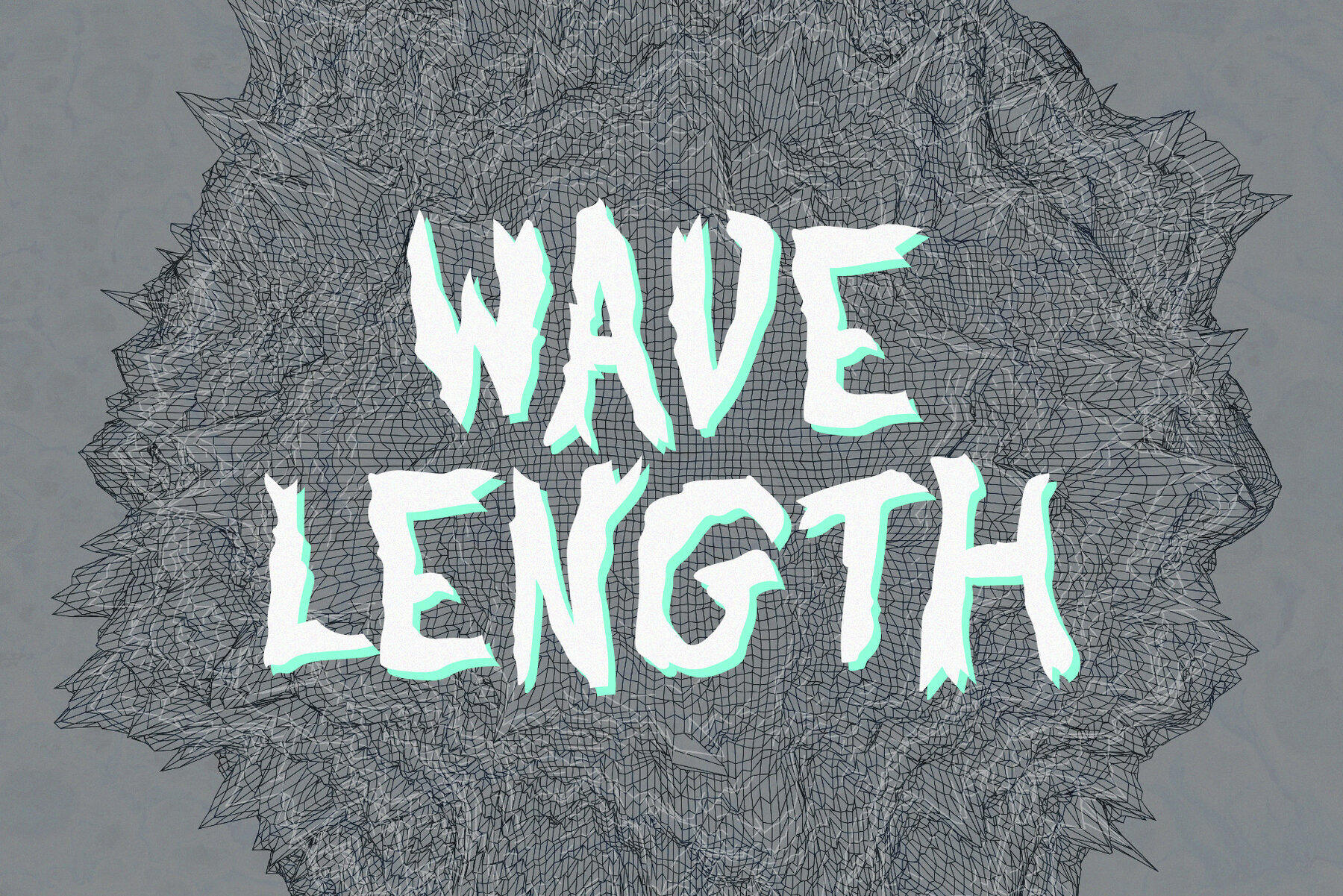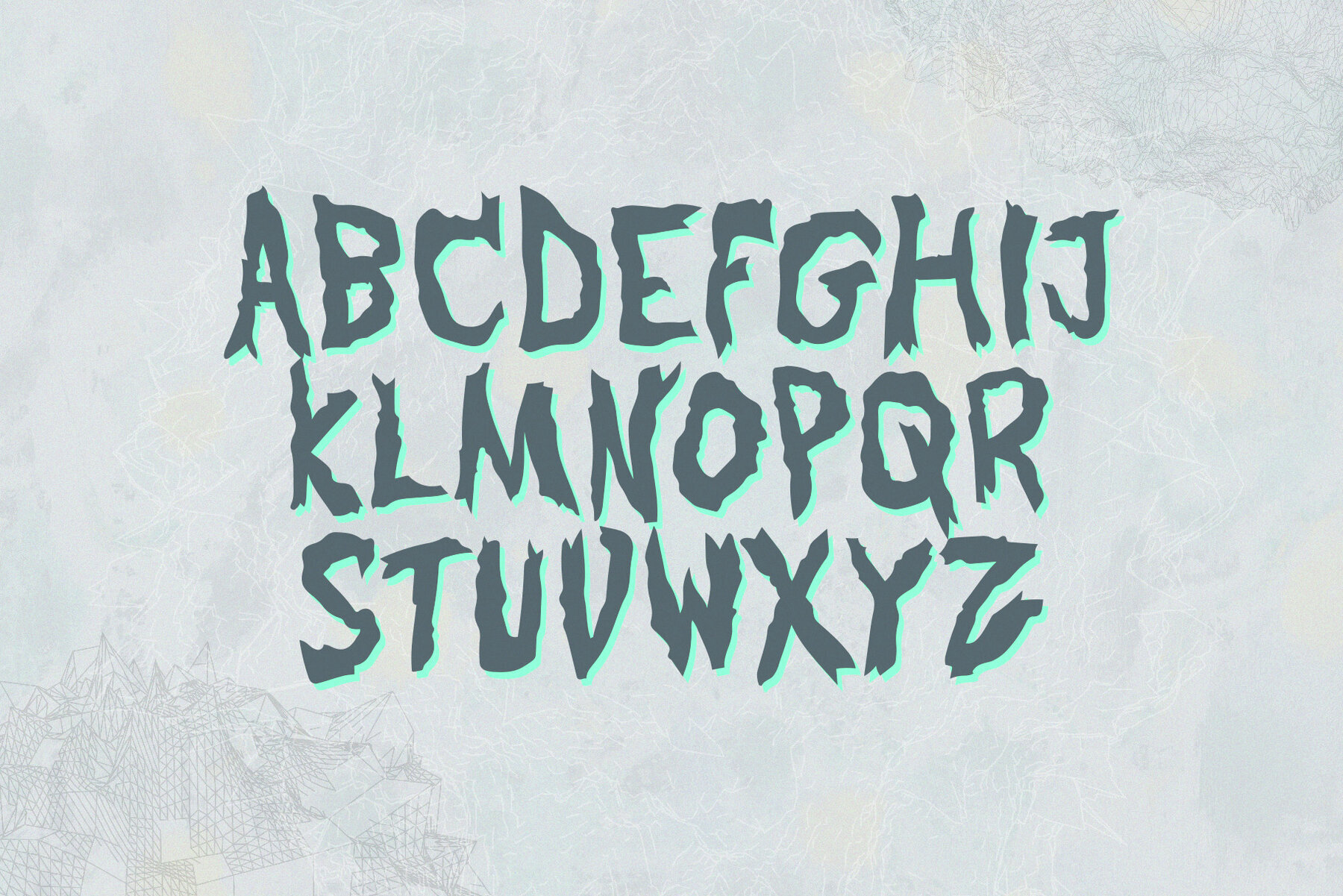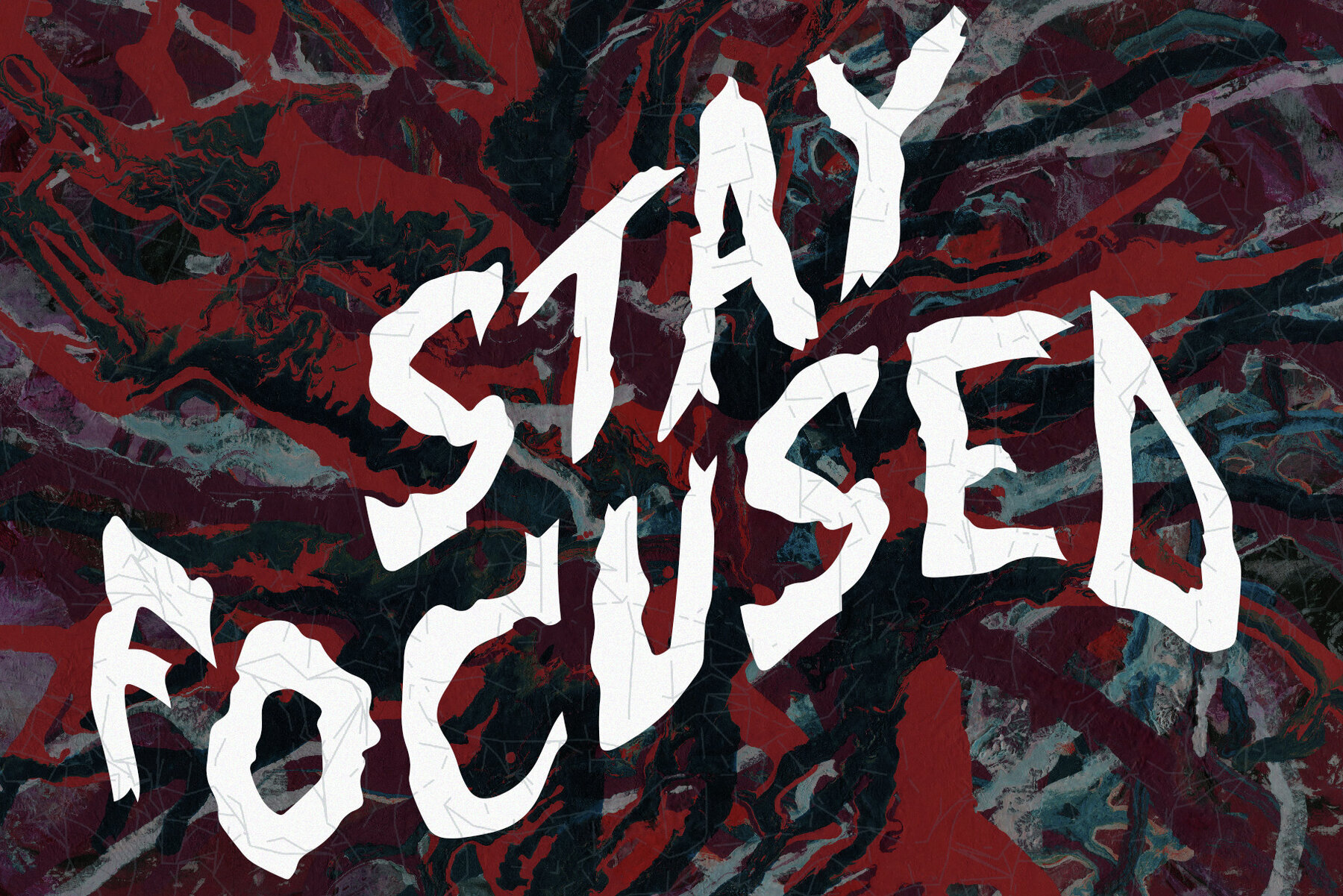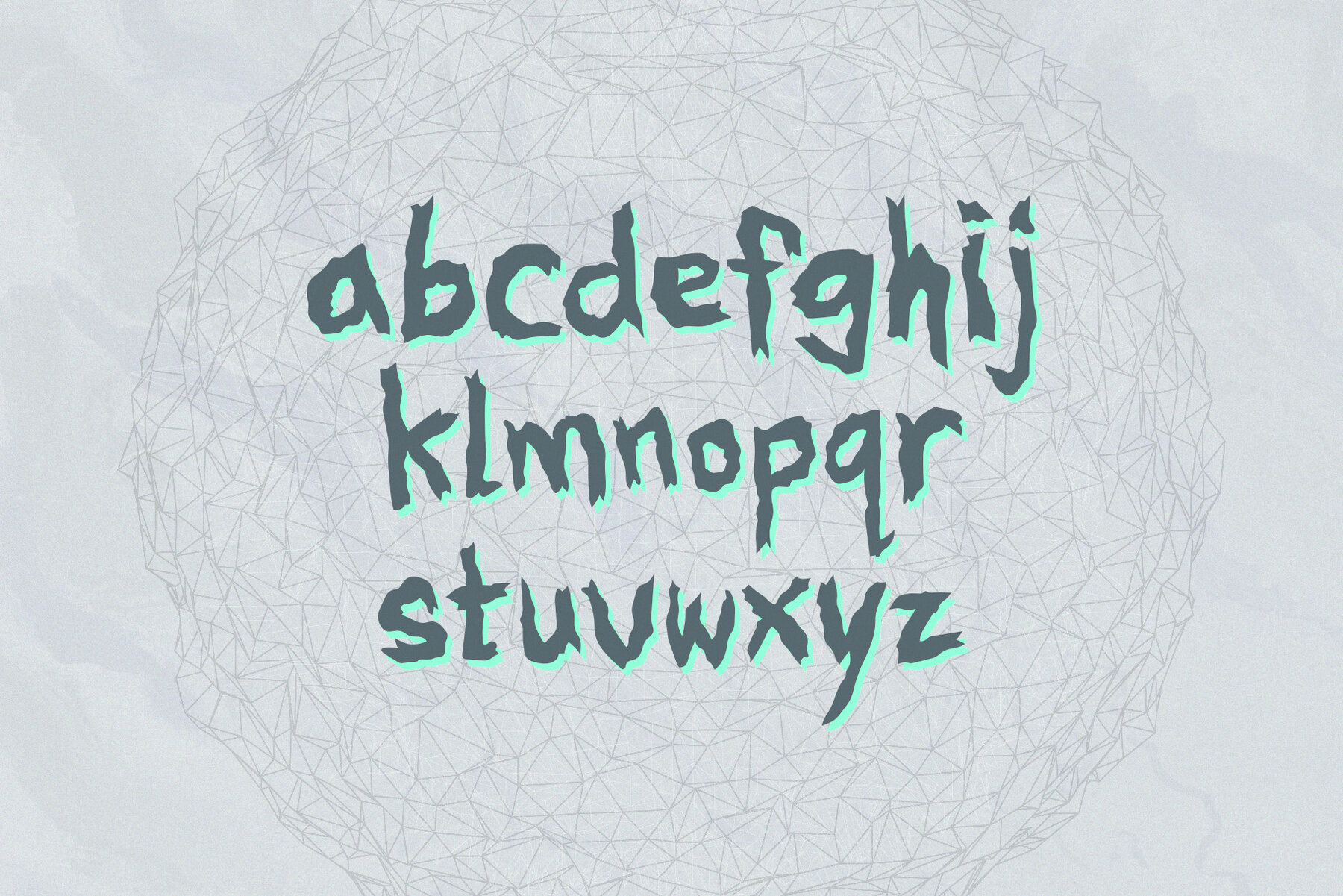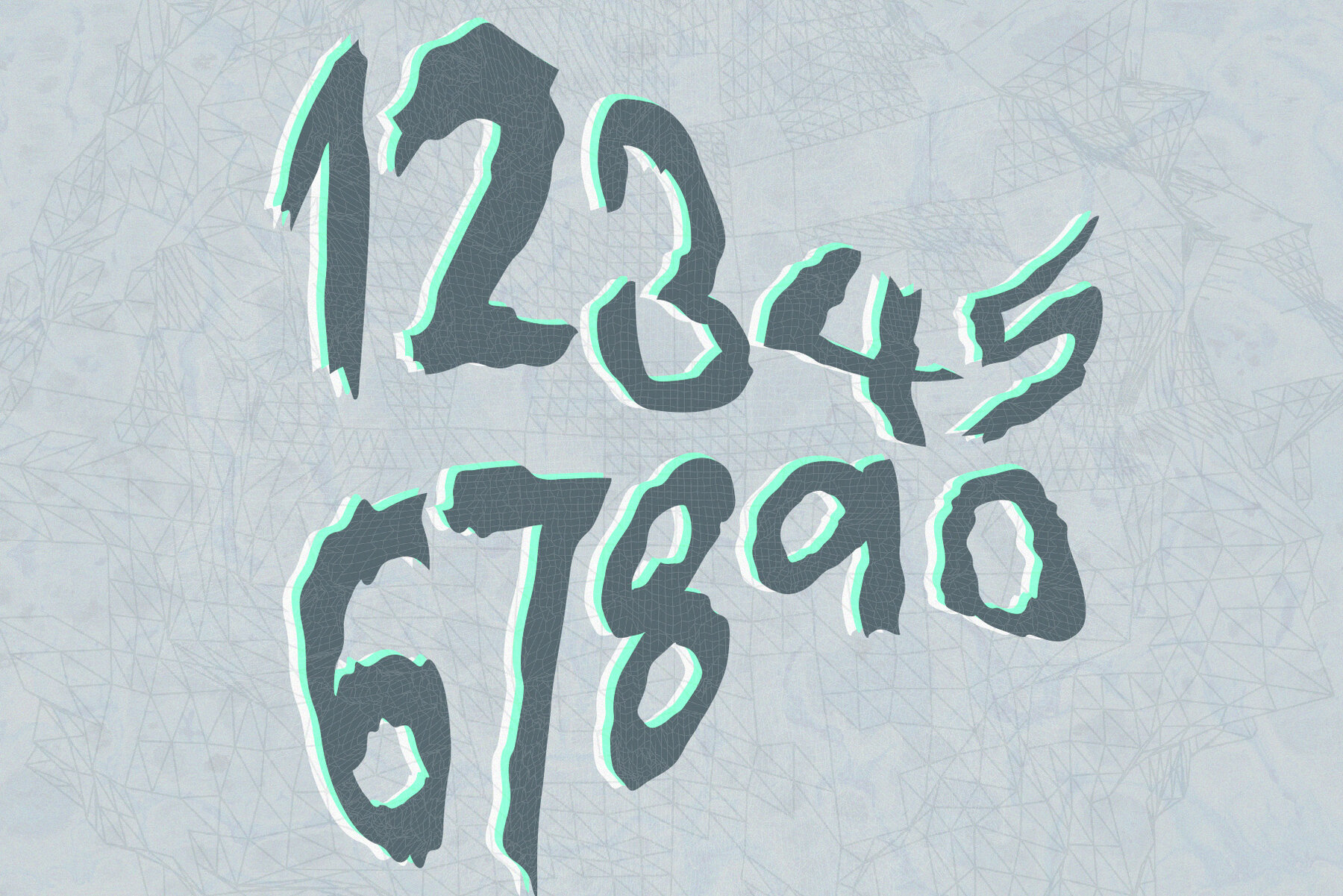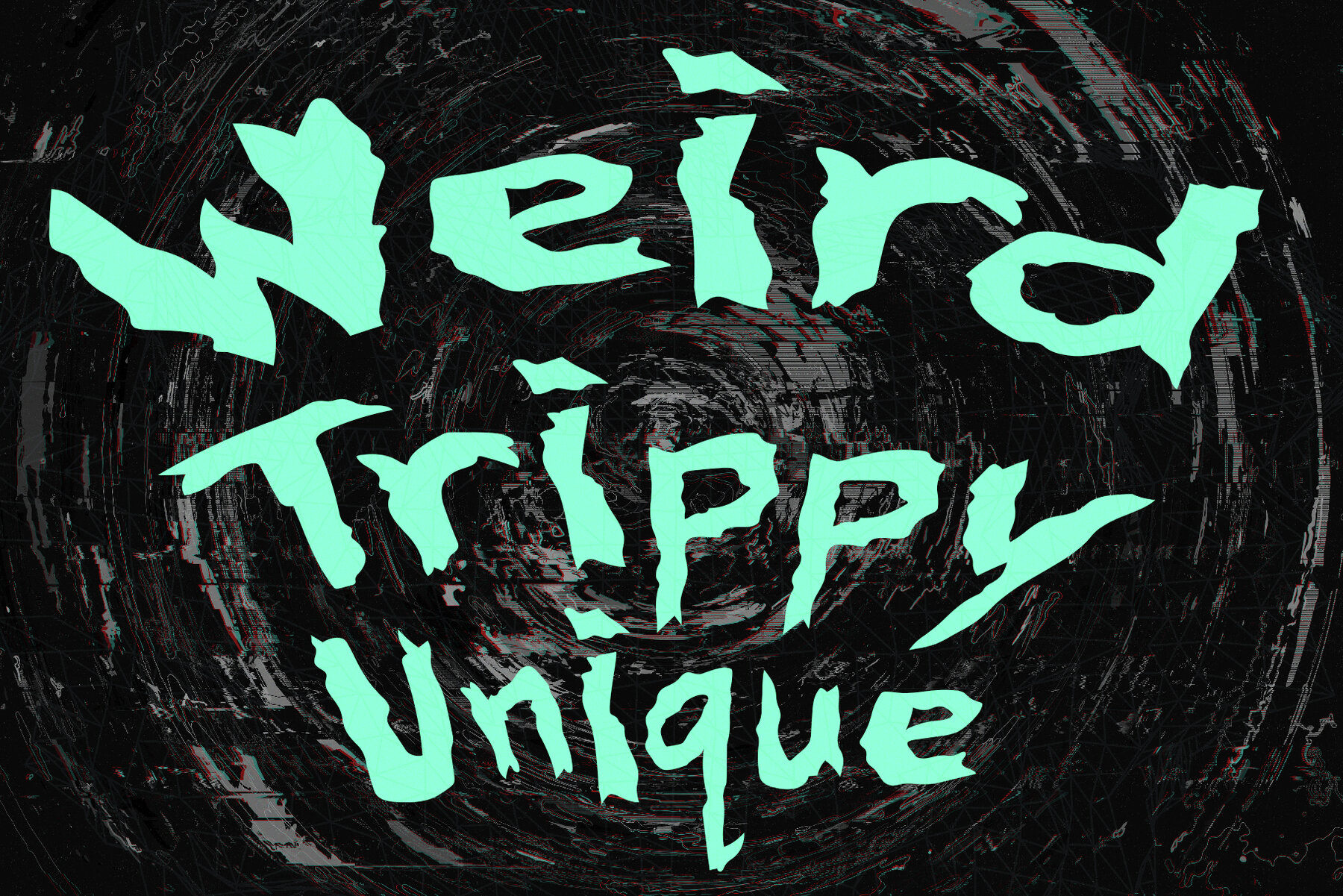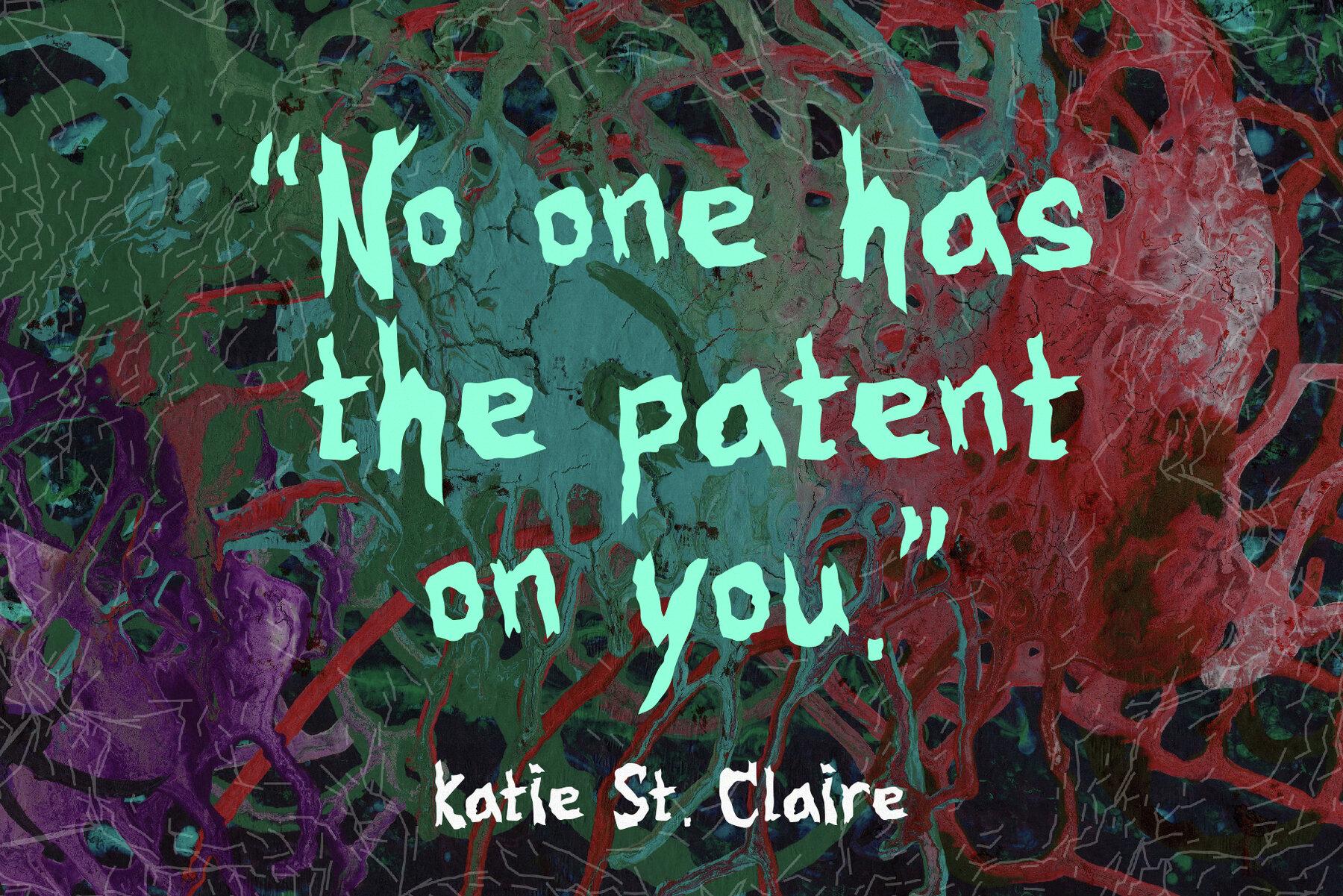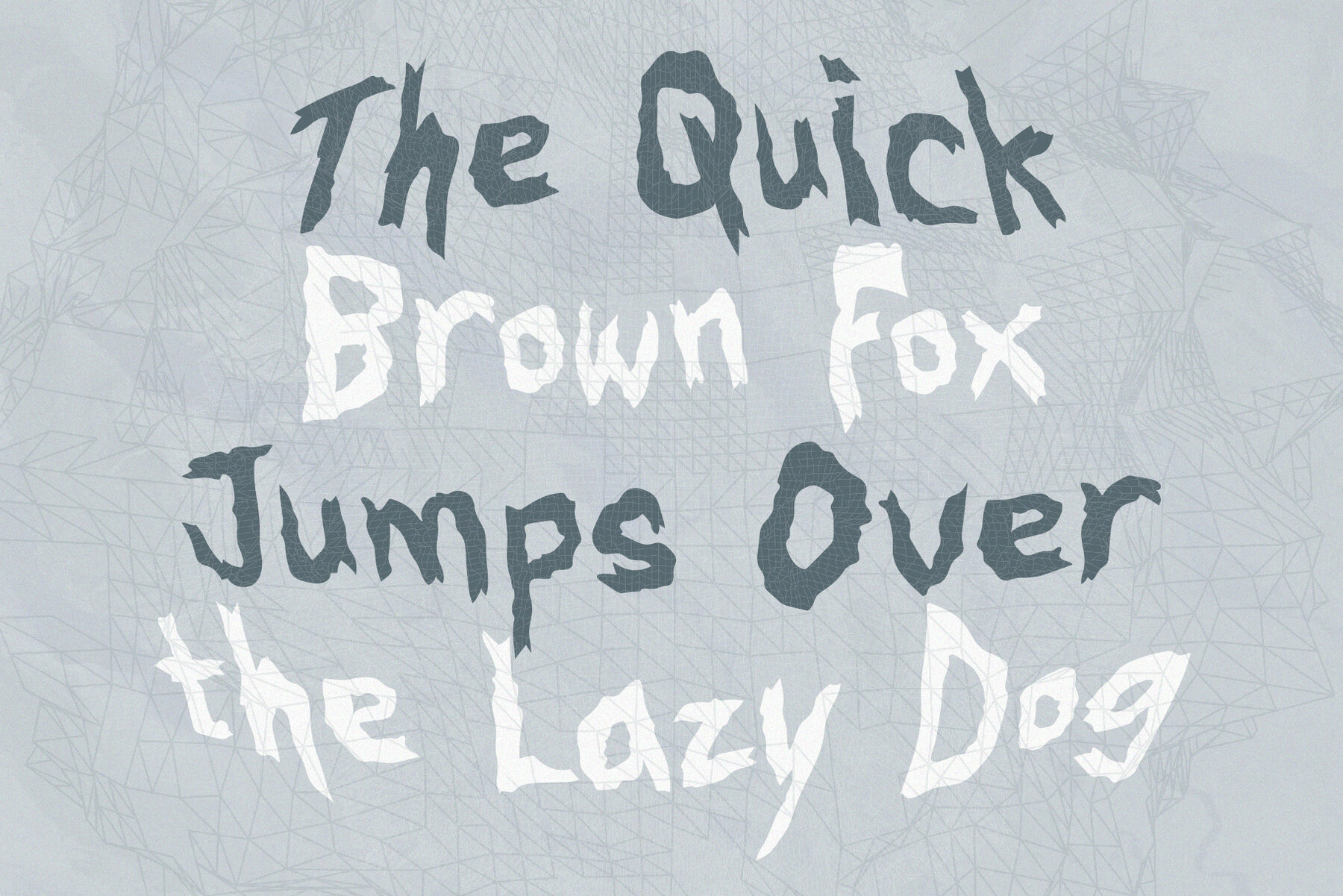
Wavelength Font
Wavelength Regular
Wavelength is an abstract display typeface designed to capture and retain attention. Featuring both uppercase and lowercase characters, numerals, and special characters, this font is a versatile choice for various creative projects. Its unique design makes it particularly suitable for use in editorials, album covers, posters, logos, web designs, and packaging.
The distinctive character of Wavelength ensures it stands out in any decorative display context. Perfect for designers looking to make a bold statement, this typeface adds a modern and artistic flair to your work. Whether used in print or digital formats, Wavelength enhances the visual impact of your projects and leaves a lasting impression.